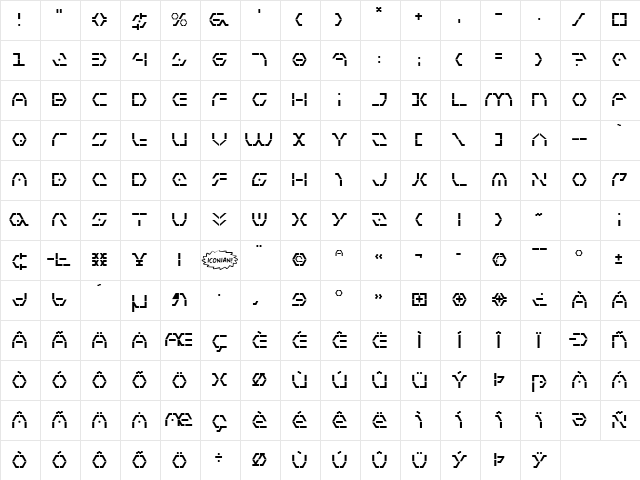
Zeta Sentry Regular Free Font
Zeta Sentry Regular
Zeta Sentry Family
Design Context for Zeta Sentry
Zeta Sentry is a composed and adaptable typeface that performs quietly and consistently across a wide range of design contexts.